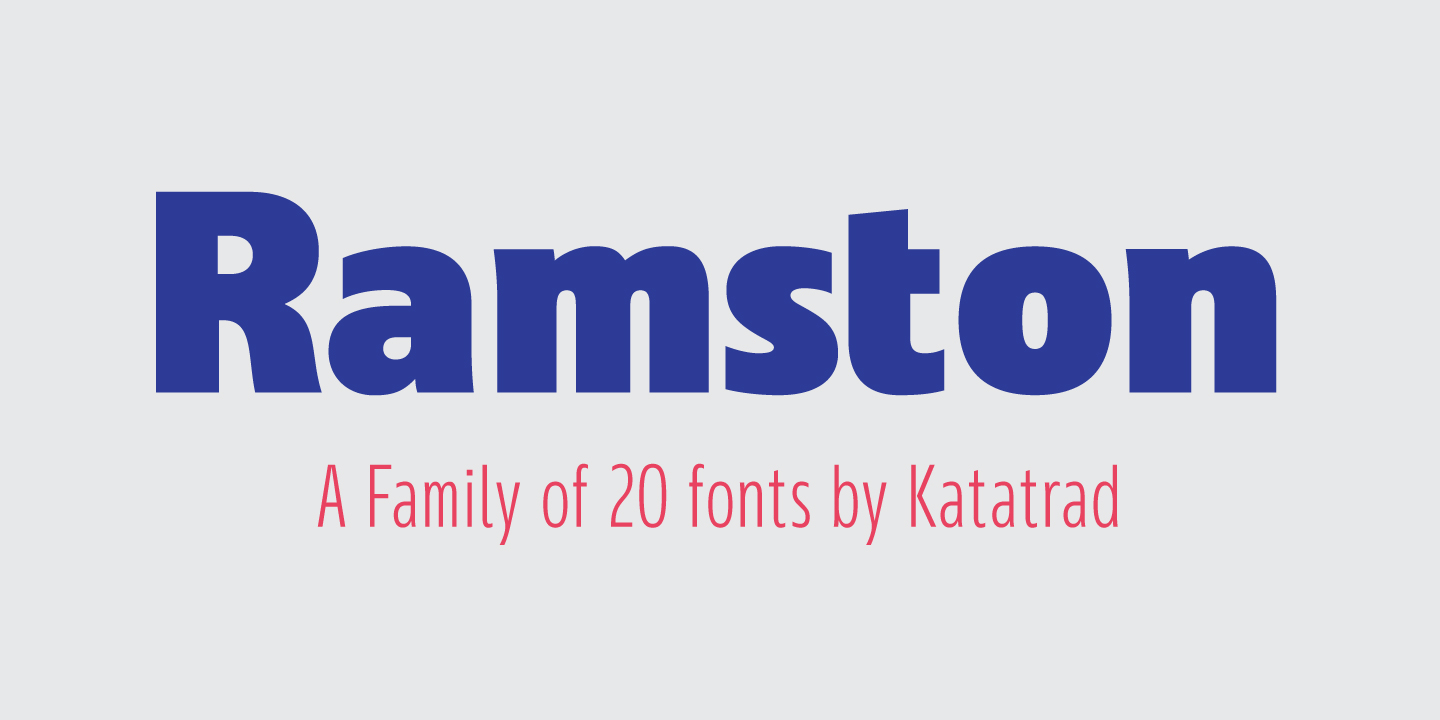
The Ramston Font is an excellent choice for designs that aim for a bold, impactful, and often rugged or vintage-inspired aesthetic. Imagine it making a strong statement on a craft beer label, adding a powerful visual punch to outdoor adventure branding, or bringing a robust, classic feel to industrial-themed designs. It's also perfectly suited for energetic event posters, streetwear designs, independent film titles, and any project where you want to convey a sense of strength, durability, and a timeless, adventurous spirit. Its often sturdy forms and confident presence make it ideal for conveying reliability and a storied past.
What makes the Ramston Font so exciting is its ability to instantly evoke a sense of hard work, honest craftsmanship, and enduring quality. It frequently features strong, well-defined letterforms that might have subtle textures or a slightly weathered appearance, reminiscent of old-school sign painting or classic workwear branding. This font has a powerful and self-assured personality that can instantly elevate your design, making it feel both established and remarkably adventurous. It’s designed to capture attention with its distinctive charm, ensuring your message is not just seen, but resonates with a sense of enduring strength and authentic character.
The Ramston Font family typically might include a range of weights, from a solid regular to a heavy, commanding bold, providing versatile options for different levels of emphasis. Some families might also offer stylistic alternates or unique ligatures that enhance its traditional or adventurous aesthetic. These variations empower designers to create a truly commanding and memorable display, ensuring the Ramston Font Free Download can adapt to a wide array of projects while maintaining its signature, timeless charm.